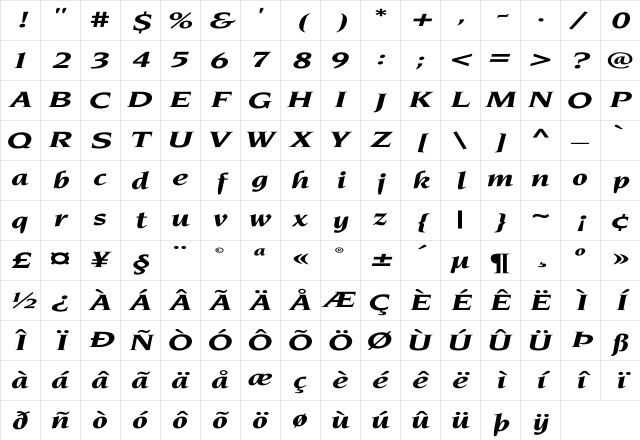
Neuvarese-BoldItalic Ex Regular
Design Context for Neuvarese-BoldItalic Ex
Neuvarese-BoldItalic Ex is a composed and adaptable typeface that performs quietly and consistently across a wide range of design contexts. The slanted form adds forward momentum and visual energy. Its bold stroke weight gives it real presence on the page.
Pro Tip: Use Neuvarese-BoldItalic Ex for emphasis, pull quotes, and subheadings where its slanted energy can add rhythm to the layout.